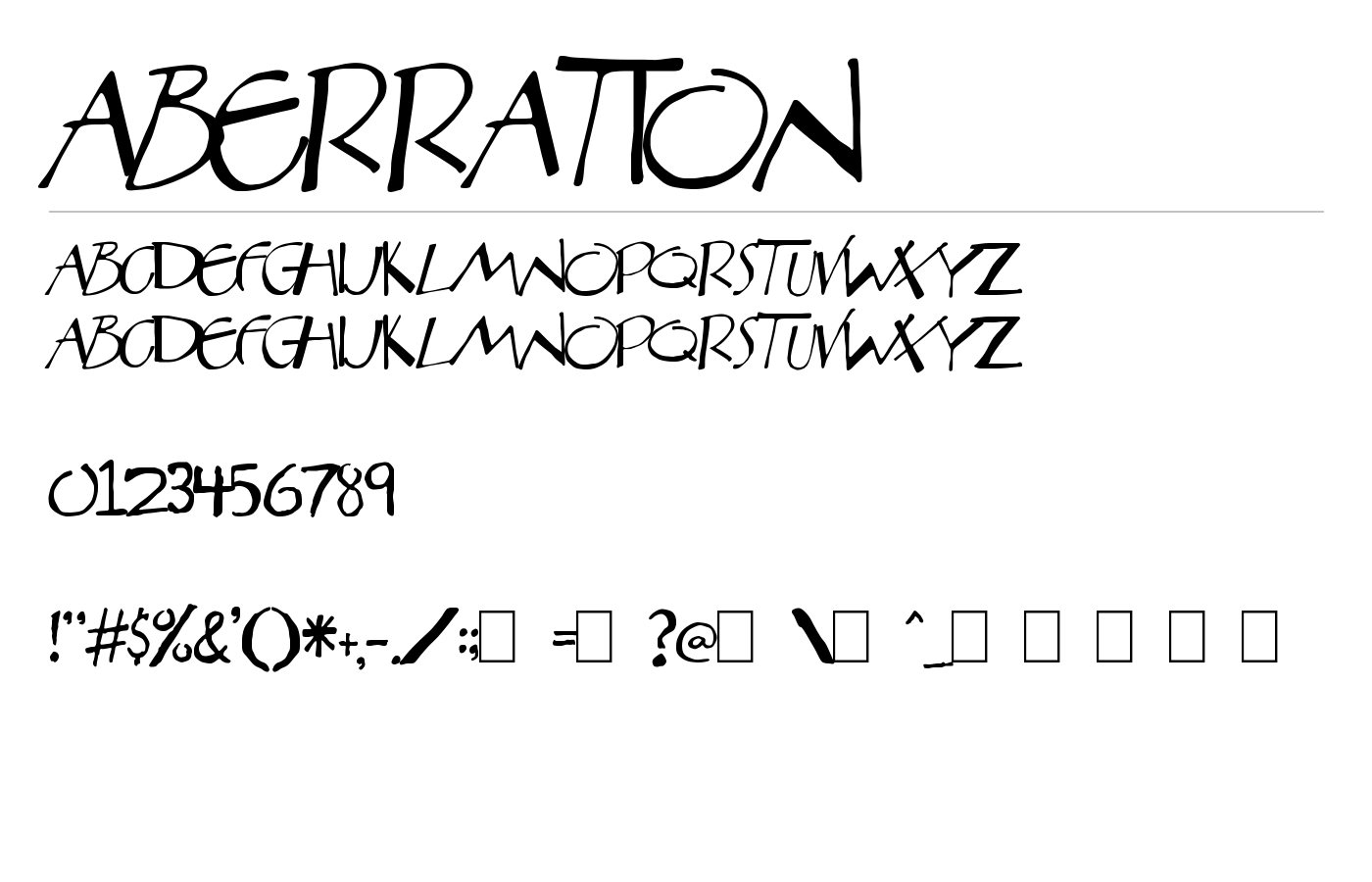
Aberration is a playful and quirky handwritten font with an irregular, energetic style that feels dynamic and artistic. Its thin, slightly angled strokes and unique letter shapes bring a sense of creativity and informality, making it ideal for creative projects, casual branding, or eye-catching headlines that want to stand out with personality. This font works well where a spontaneous, fun vibe is desired, such as in posters, invitations, or artistic logos.
Aberration Font